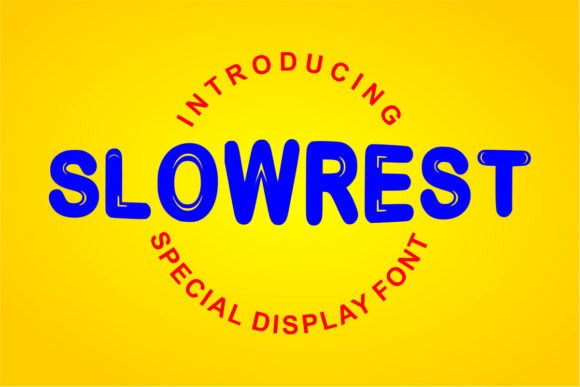
Unleash the elegance of Slowrest, a display font brimming with personality and style, designed to elevate your digital creations. Immerse yourself in a world of elegance and sophistication as you discover the charm of Slowrest, a font crafted with precision and passion. Let your words dance across the screen, leaving an indelible impression on your audience. Slowrest is the perfect companion for presentations, social media graphics, branding, and more. Its timeless appeal transcends trends, making it an investment that will serve you well for years to come.
Step into the spotlight and let your words command attention with Slowrest. Whether you're a seasoned designer or just starting out, this font is a breeze to use. Its user-friendly nature makes it accessible to anyone with a creative vision. Let Slowrest be your secret weapon to create designs that resonate with your audience. From eye-catching headlines to compelling body text, Slowrest delivers a consistent level of excellence.
Experience the versatility of Slowrest as it effortlessly adapts to a wide range of projects. Whether you're designing a sleek logo, crafting an informative white paper, or creating an unforgettable greeting card, Slowrest will elevate your work to new heights. Its versatility is unmatched, allowing you to explore endless creative possibilities. Unleash your imagination and see your ideas flourish as Slowrest transforms your designs into works of art.
Join the ranks of creative professionals who have discovered the magic of Slowrest. Let your designs speak volumes as you weave your words into visual tapestries that captivate and inspire. Elevate your digital presence, leaving a lasting impression on your audience. With Slowrest, every design becomes a masterpiece, every presentation a tour de force.
Embrace the beauty of Slowrest today and unlock a world of creative possibilities. Let your designs shine brighter than ever before as you experience the elegance, sophistication, and versatility that Slowrest brings to every project. Elevate your work to new heights and leave your audience spellbound with every stroke of the pen.